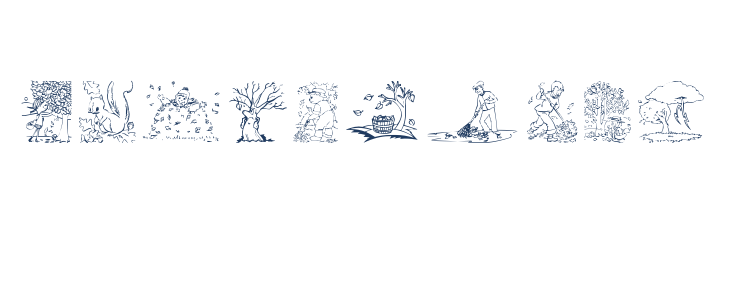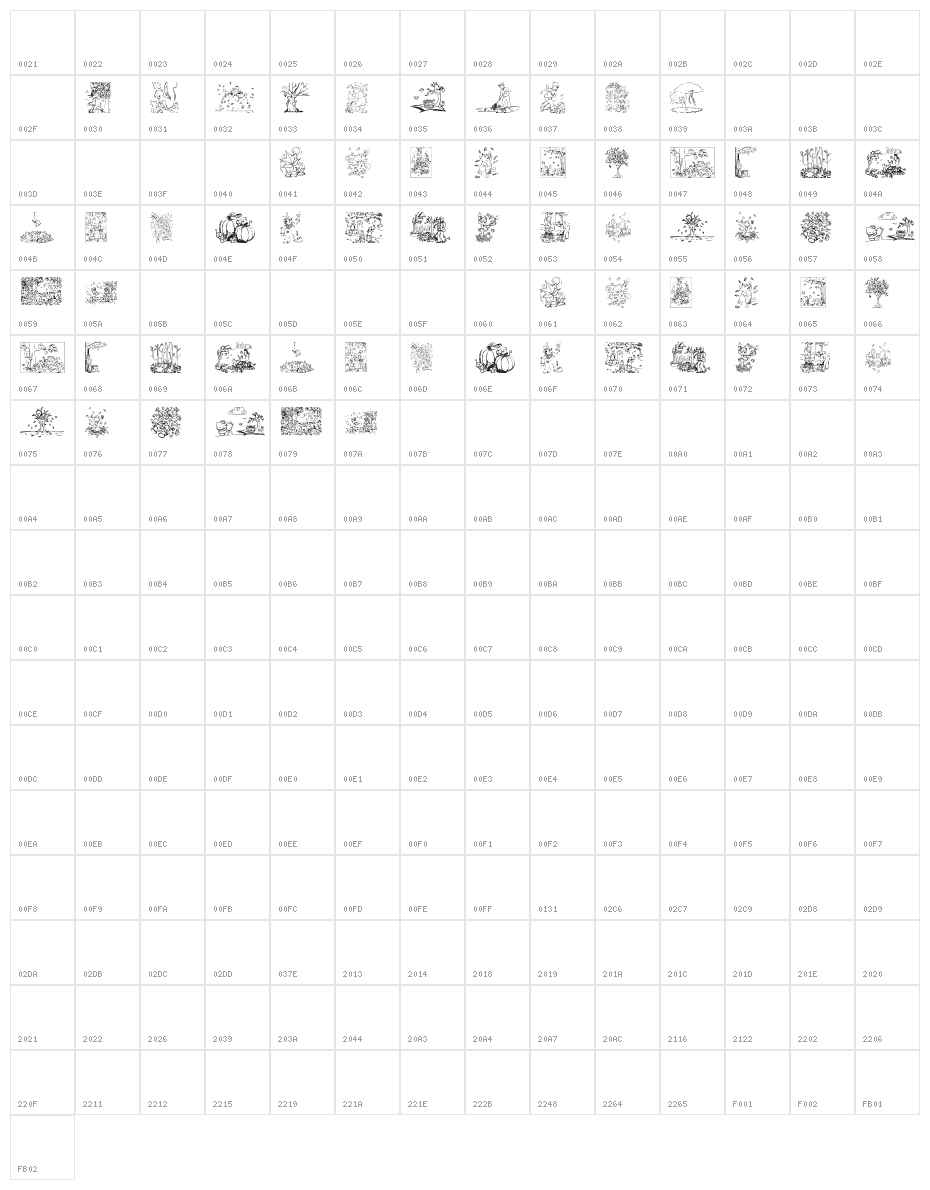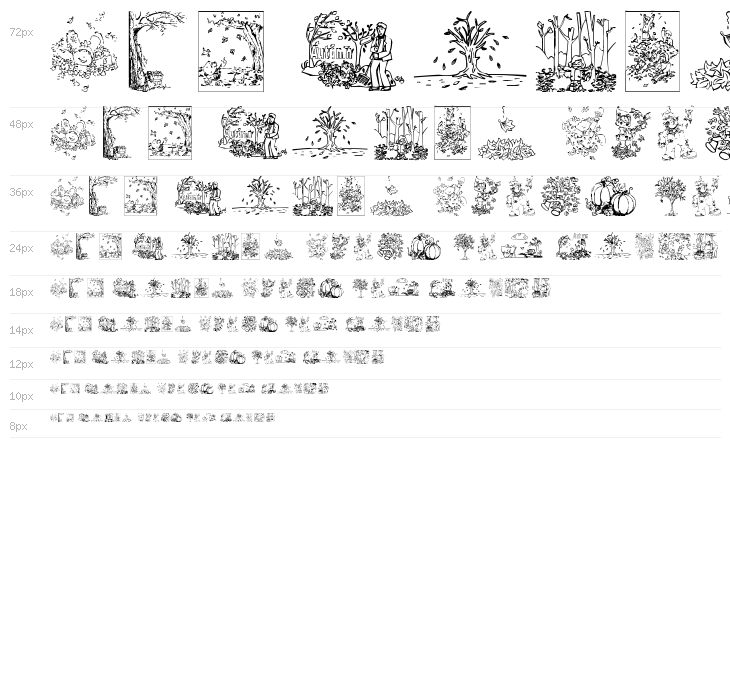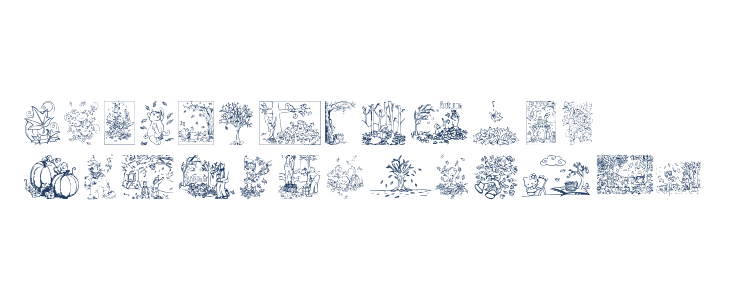
Autumm Font
Autumm Description
This decorative font is a whimsical collection of autumn-themed illustrations, each representing a different character. The designs incorporate elements such as leaves, trees, pumpkins, and other seasonal motifs, creating a playful and artistic representation of the autumn season. Each character is intricately detailed, showcasing a unique scene or object that embodies the essence of fall. The font is highly decorative, making it ideal for projects that require a touch of seasonal charm and creativity. The illustrations are consistent in style, with a hand-drawn quality that adds to their charm and appeal.
| Use Case | Logos, Decorative headings, Seasonal promotions |
| Proposed Projects | Ideal for seasonal greeting cards, fall festival posters, decorative banners, and themed invitations. |